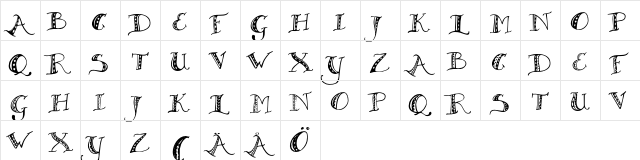
KarinsFreeLombardyCaps Regular
| Foundry | David Kettlewell, New Renaissance Fonts |
| Designer | Karin Skoglund and David Kettlewell |
Design Context for KarinsFreeLombardyCaps Typeface
KarinsFreeLombardyCaps is a composed and adaptable typeface that performs quietly and consistently across a wide range of design contexts.